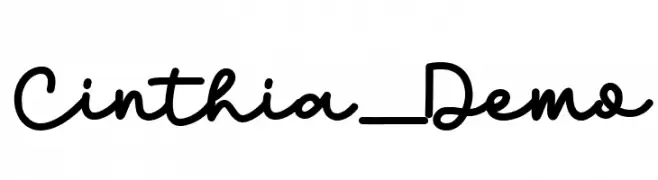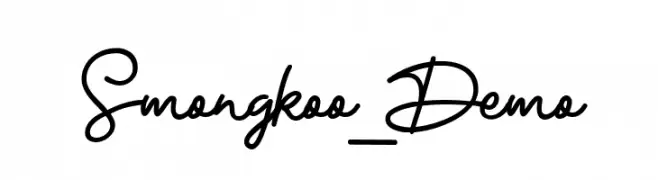
A casual and elegant handwritten font with smooth, flowing strokes.
A modern, geometric sans-serif font with clean lines and a minimalist style.
A playful, hand-drawn script font with interconnected characters and a whimsical style.
A bold, hand-drawn font with a rustic and organic feel.
A bold, decorative font with geometric accents and a modern flair.
A bold, hand-drawn font with a grunge aesthetic and irregular edges.
A bold, playful handwritten font with smooth, flowing curves.
A lively, cursive handwritten font with fluid and elegant letterforms.
A lively cursive script font with interconnected letters and a playful yet refined style.
A flowing, cursive font with elegant, interconnected characters.